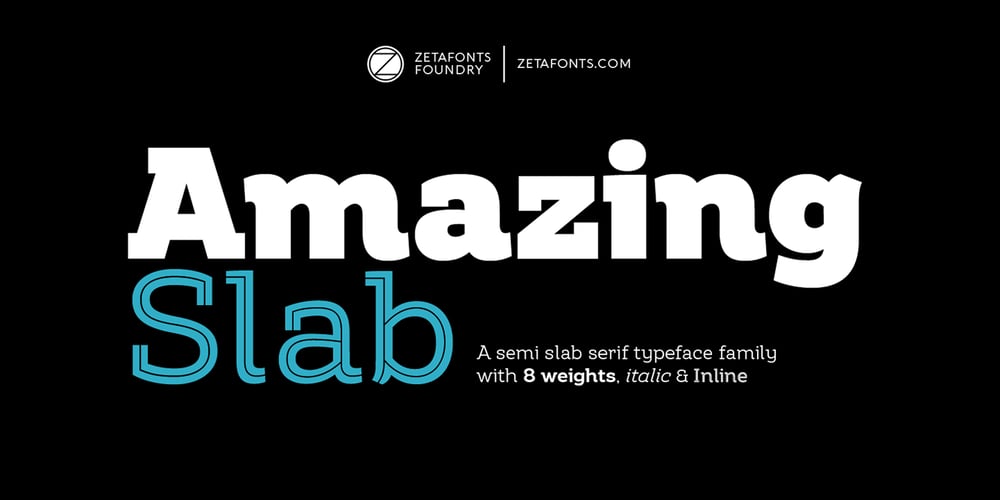
Amazing Slab Font Family was designed by Francesco Canovaro, Andrea Tartarelli, Mario De Libero and published by Zetafonts. Amazing Slab contains 21 styles and family package options. Amazing Slab is a typeface family designed by Francesco Canovaro and Andrea Tartarelli as a development of the Amazing Grotesk family designed by Cosimo Lorenzo Pancini. Mixing an egyptian serif, low contrast approach with the curved endings and open shapes of humanist sans grotesques, it was developed to embody the energetic and friendly nature of the startup scene: a feeling of innovation, information and energy, with a desire for simplicity and straightforward communication. The basic design shapes for the font come from the strong personality of the extrabold letterforms drawn by Francesco Canovaro for his StartupItalia logo, that informed the display design of the four darkest weights (from medium to black). Each of these weights, has been paired with an inline version, designed by Mario De Libero, to extend the range of uses for the typefaces, from bold signage to logo design, to editorial titling.The lighter range of the family features two weights (regular and light) that are designed for text use, complemented by the thin and extralight weights that are better suited to big point size, for editorial and signage use. All the weights of Amazing Slab, as well the matching true italics forms, feature an extended charset of over 900 glyphs, covering 211 languages using latin, cyrillic and greek alphabets, and sporting a complete set of Open type features including positional numbers, annotation and case-sensitive forms, standard ligatures and a wide array of stylistic sets to customize glyph shapes for logo and display usage. With its friendly, energetic mood and its versatile range of application use, Amazing Slab is born to make every design project look simply… amazing! Suggested uses: old signage, logo design, editorial titling, display 21 styles: 8 weights, 8 italics, 4 inline styles, 1 variable font 965 glyphs in each weight Useful OpenType features: Small Capitals; Standard Ligatures; Discretionary Ligatures; Stylistic Alternates; Stylistic sets 01, 02, 03, 04, 05, 06; Ordinals; Fractions; Tabular Figures; Old-style Figures; Slashed Zero; Circled Numbers; Case Sensitive Forms; Numerators; Denominators; Subscript; Superscript; Scientific Inferiors; 211 languages supported: extended Latin, Cyrillic, Greek English, Spanish, Portuguese, French, Russian, German, Javanese (Latin), Turkish, Italian, Polish, Afaan Oromo, Azeri, Tagalog, Sundanese (Latin), Filipino, Moldovan, Romanian, Indonesian, Dutch, Cebuano, Malay, Uzbek (Latin), Kurdish (Latin), Swahili, Greek, Hungarian, Czech, Haitian Creole, Hiligaynon, Afrikaans, Somali, Zulu, Serbian, Swedish, Bulgarian, Shona, Quechua, Albanian, Catalan, Chichewa, Ilocano, Kikongo, Kinyarwanda, Neapolitan, Xhosa, Tshiluba, Slovak, Danish, Finnish, Norwegian, Sicilian, Sotho (Southern), Kirundi, Tswana, Sotho (Northern), Belarusian (Latin), Turkmen (Latin), Bemba, Lombard, Lithuanian, Tsonga, Wolof, Jamaican, Dholuo, Galician, Ganda, Low Saxon, Waray-Waray, Makhuwa, Bikol, Kapampangan (Latin), Aymara, Zarma, Ndebele, Slovenian, Tumbuka, Venetian, Genoese, Piedmontese, Swazi, Zazaki, Latvian, Nahuatl, Silesian, Bashkir (Latin), Sardinian, Estonian, Afar, Cape Verdean Creole, Maasai, Occitan, Tetum, Oshiwambo, Basque, Welsh, Chavacano, Dawan, Montenegrin, Walloon, Asturian, Kaqchikel, Ossetian (Latin), Zapotec, Frisian, Guadeloupean Creole, Q’eqchi’, Karakalpak (Latin), Crimean Tatar (Latin), Sango, Luxembourgish, Samoan, Maltese, Tzotzil, Fijian, Friulian, Icelandic, Sranan, Wayuu, Papiamento, Aromanian, Corsican, Breton, Amis, Gagauz (Latin), Māori, Tok Pisin, Tongan, Alsatian, Atayal, Kiribati, Seychellois Creole, Võro, Tahitian, Scottish Gaelic, Chamorro, Kashubian, Faroese, Rarotongan, Sorbian (Upper Sorbian), Karelian (Latin), Romansh, Chickasaw, Arvanitic (Latin), Nagamese Creole, Saramaccan, Ladin, Palauan, Sami (Northern Sami), Sorbian (Lower Sorbian), Drehu, Wallisian, Aragonese, Tuvaluan, Zuni, Montagnais, Hawaiian, Marquesan, Niuean, Yapese, Vepsian, Bislama, Hopi, Megleno-Romanian, Creek, Aranese, Rotokas, Tokelauan, Mohawk, Warlpiri, Cimbrian, Sami (Lule Sami), Jèrriais, Arrernte, Murrinh-Patha, Kala Lagaw Ya, Cofán, Gwich’in, Seri, Sami (Southern Sami), Istro-Romanian, Wik-Mungkan, Anuta, Cornish, Sami (Inari Sami), Yindjibarndi, Noongar, Hotcąk (Latin), Meriam Mir, Manx, Shawnee, Gooniyandi, Ido, Wiradjuri, Hän, Ngiyambaa, Delaware, Potawatomi, Abenaki, Esperanto, Folkspraak, Interglossa, Interlingua, Latin, Latino sine Flexione, Lojban, Novial, Occidental, Old Icelandic, Old Norse, Slovio (Latin), Volapük